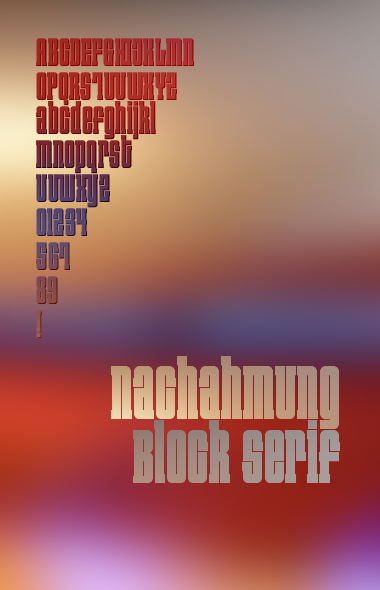
fs Nachahmung Block Serif
The 'why not' version...with a guentersen style heart at the dagger.
Why not indeed. Beautiful.
Just checking the rest of your work. This is faultless and superb, why the f**k it didn't get Top Pick I'll never know. 10/10